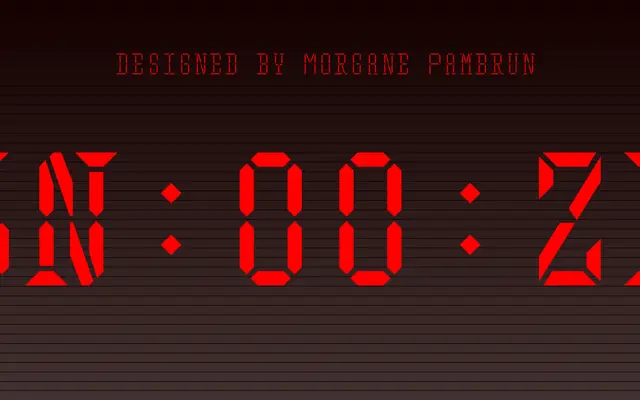
A three-weight display script from Indian Type Foundry, spanning Light to Bold for headline and decorative work.
Snooze offers three weights from Light through Regular to Bold, giving designers a modest range for logotype, packaging and editorial headline use. The family is compact, with no italics or condensed cuts, keeping its focus on decorative impact rather than versatility. At under £75 for the complete family, it sits as an accessible option for casual display work.
Snooze is categorised as a script-style display face by ITF, suited to decorative and headline use rather than extended reading.